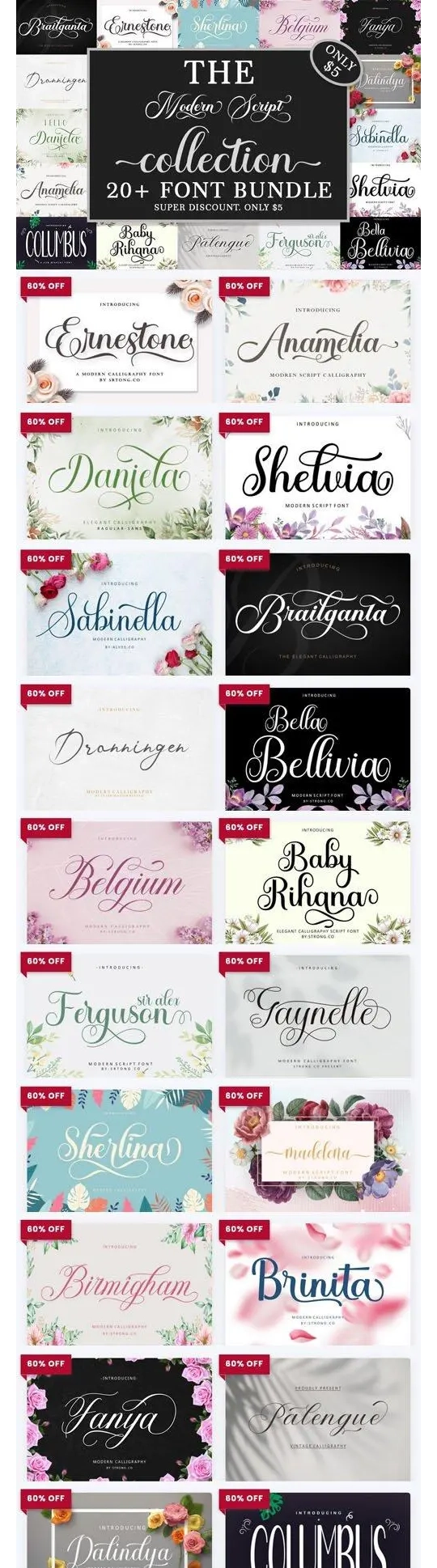
The Modern Script Collection – 20 Premium Fonts
Introducing The Modern Script Collection, a carefully curated set of 20 premium fonts designed to elevate your creative projects. These fonts feature a range of elegant script styles that seamlessly blend sophistication with contemporary design.
• 20 unique script fonts
• Variety of weights and styles
• Beautifully crafted for versatility
These fonts are ideal for branding, logos, invitations, and any project that requires a touch of elegance. Use them to create stunning visuals that stand out and leave a lasting impression.